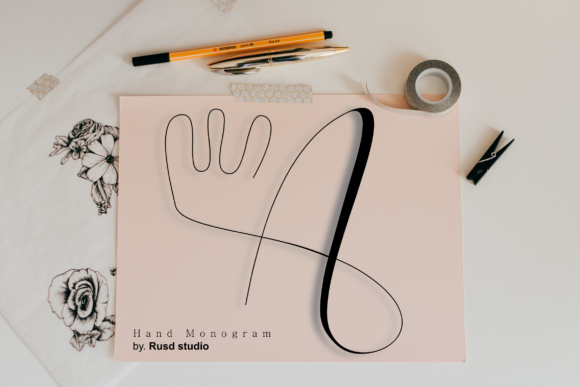
Immerse yourself in the realm of elegance and sophistication with Hand Monogram Font, a script typeface that exudes a timeless charm. Its delicate strokes and graceful swashes dance across digital pages, leaving behind a trail of captivating impressions. This handcrafted font is the brainchild of Rusd Studio, renowned for their dedication to creating typographic masterpieces.
Journey into the world of creative possibilities with Hand Monogram Font. Its versatility knows no bounds, from crafting heartfelt Christmas cards that convey the warmth of the season to designing stationery that speaks of understated luxury. Whether you're a seasoned designer or a creative enthusiast, this font is your gateway to transforming ordinary words into captivating visual narratives.
Hand Monogram Font is your secret weapon for leaving a lasting impression. Its elegant curves and sweeping strokes command attention, making your words stand out from the crowd. Harness the power of this font to craft wedding invitations that evoke a sense of timeless romance, branding materials that exude professionalism, or social media posts that capture the hearts of your audience.
Unleash your creativity and unlock the full potential of Hand Monogram Font. Its meticulously crafted characters are waiting to be the stars of your next design masterpiece. Dive into a world of endless possibilities, where your imagination is the only limit.